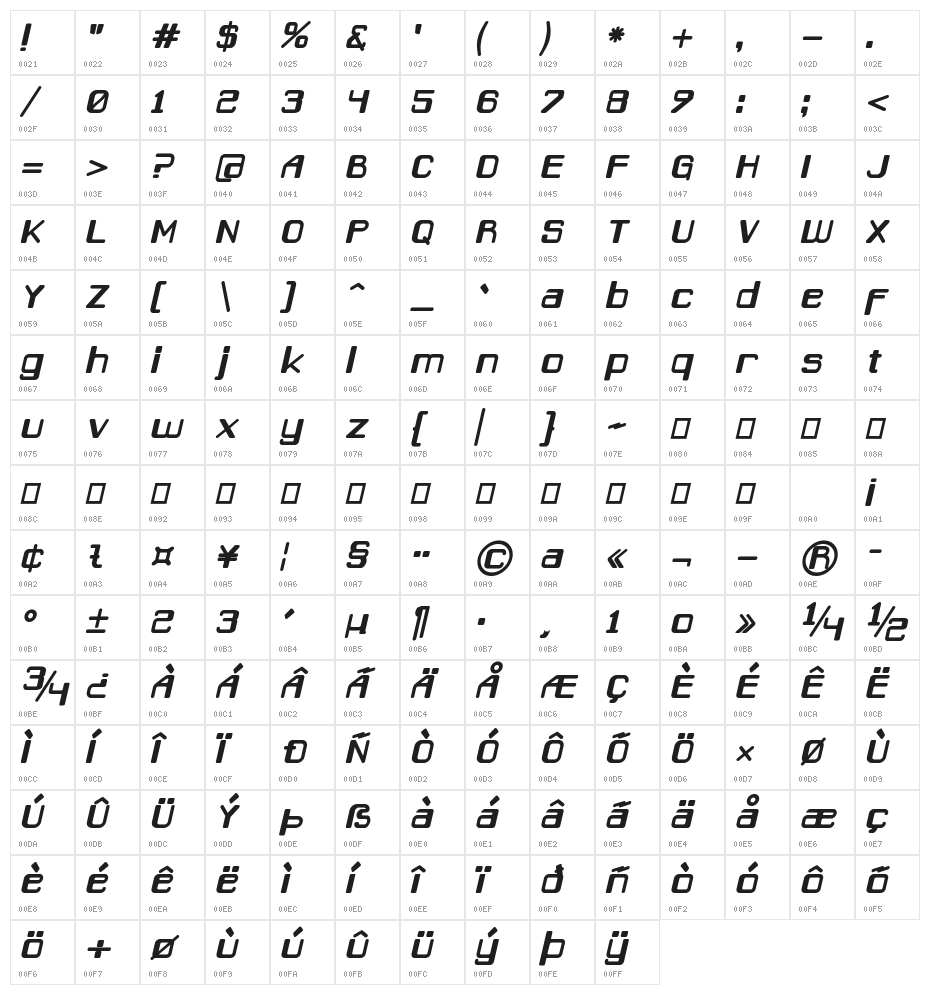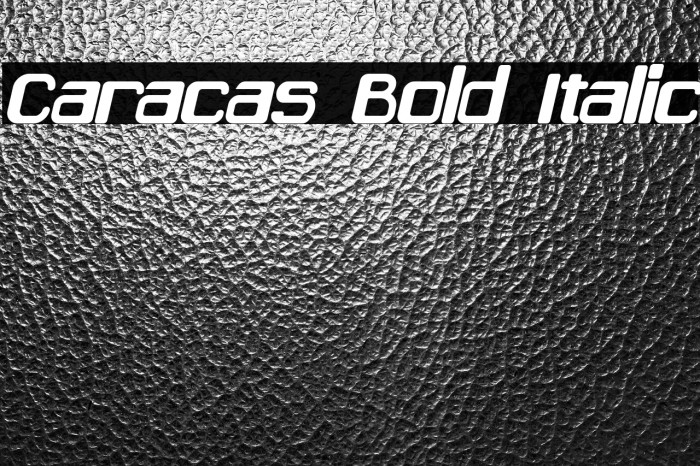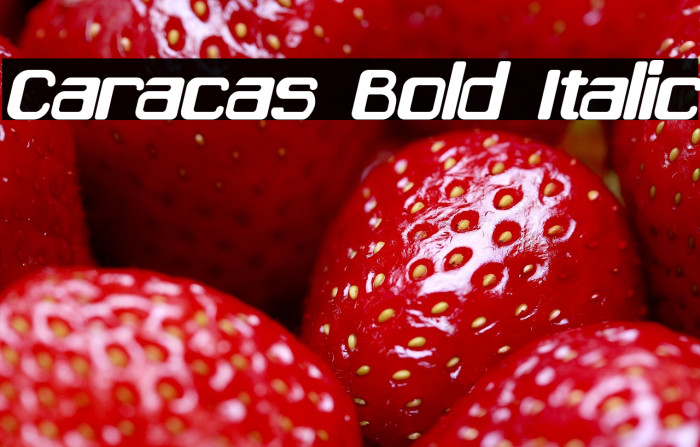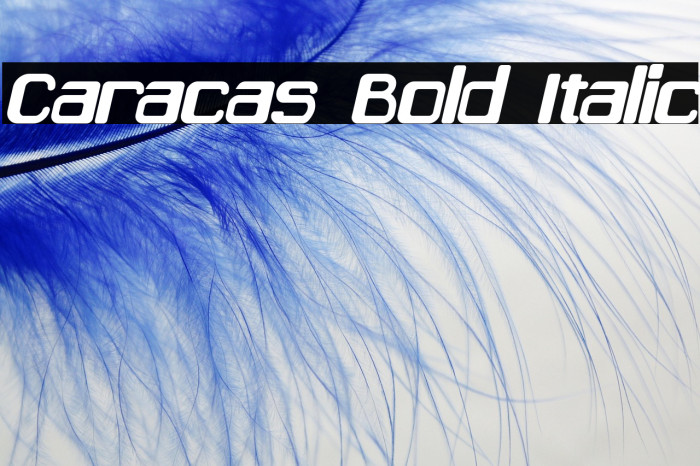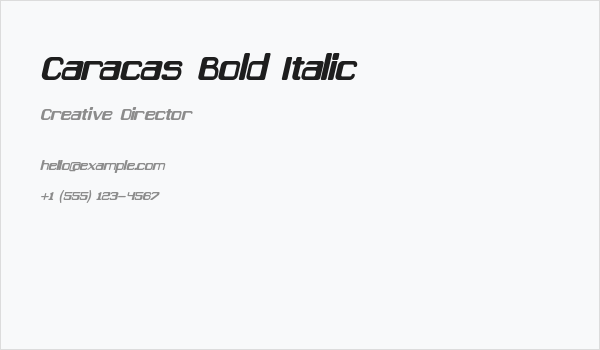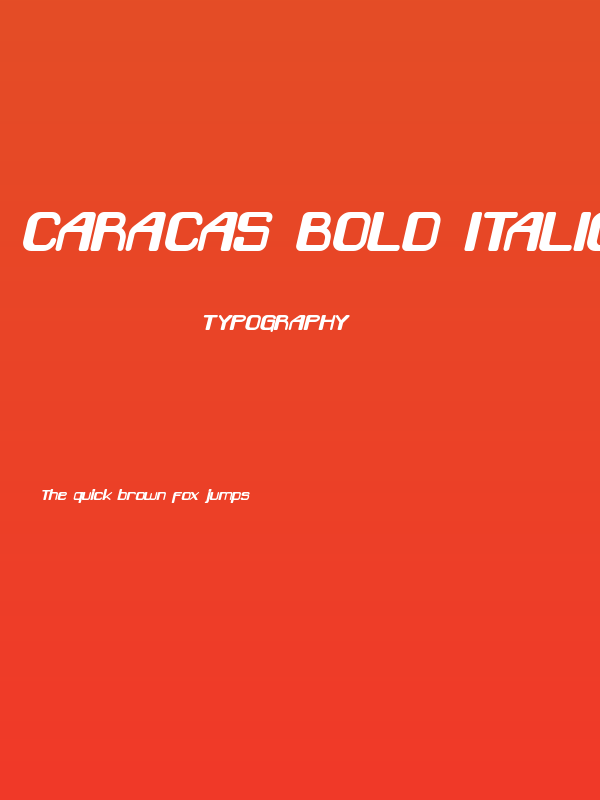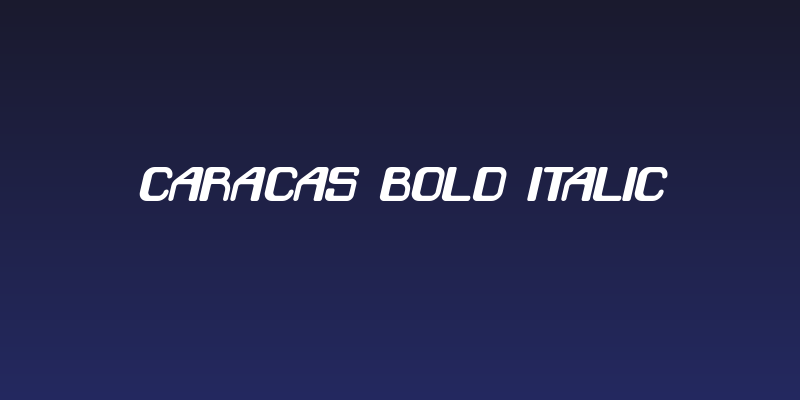
Caracas Bold Italic Font
Caracas Bold Italic Description
This font features a bold and italicized style with a modern, dynamic appearance. The characters are slightly slanted, giving a sense of movement and energy. The strokes are thick and consistent, providing a strong visual impact. The design is clean and geometric, with rounded edges that soften the overall look. The uppercase and lowercase letters maintain a uniform width, ensuring readability. The numerals and special characters are designed to match the bold aesthetic, making them stand out effectively. This font is suitable for projects that require a contemporary and assertive typeface.